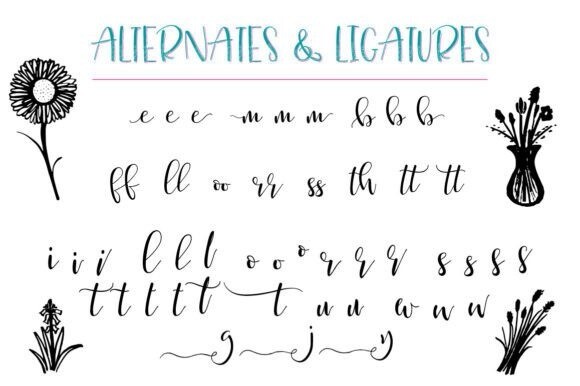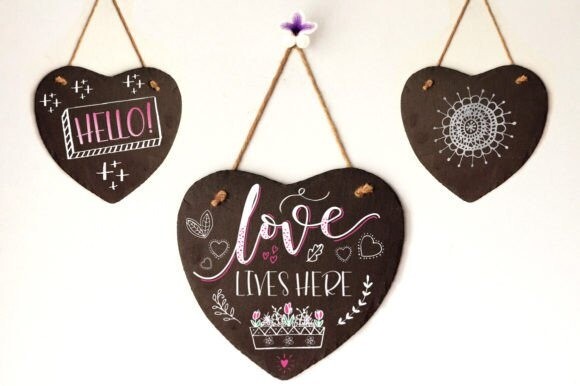
Just Write Font
Just Write Font, This little bundle of fonts is perfect for a hand-lettered feel to your projects. The caps work perfectly on their own and are great for complimenting all lowercase lettering too! The dots give off a real feel of celebration and with the free doodles, you’ve got everything you need to make some great designs!